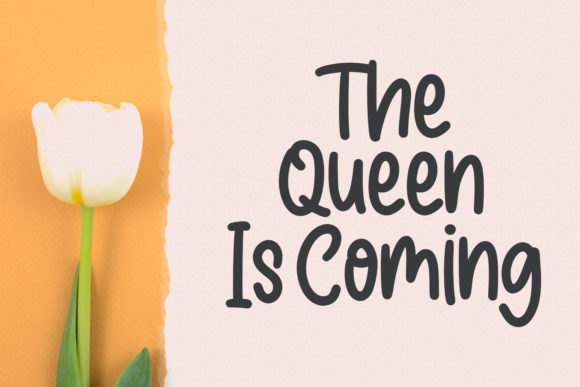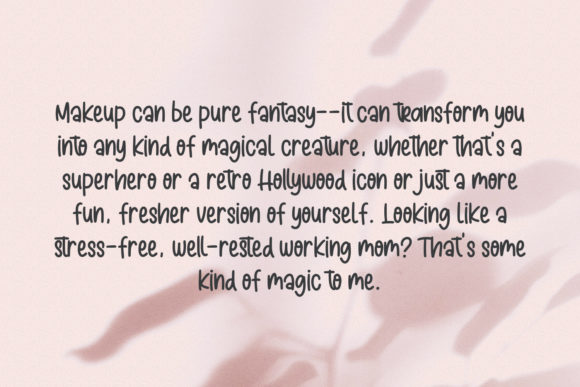
About Blisstrapy Font
Blisstrapy is a cute and simple lettered handwritten font that can be used for all chalkboard quotes or teaching material! Its authentic look will add a personal and realistic feel to your designs.